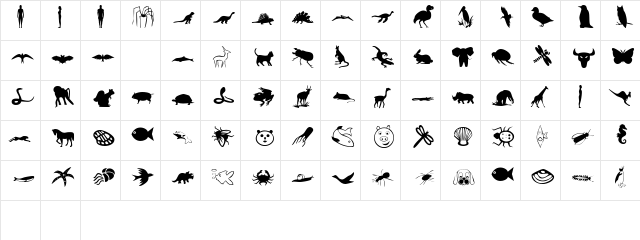
DexisDingbatsThreeSSK Regular
Design Context for DexisDingbatsThreeSSK Typeface
DexisDingbatsThreeSSK is a composed and adaptable typeface that performs quietly and consistently across a wide range of design contexts.